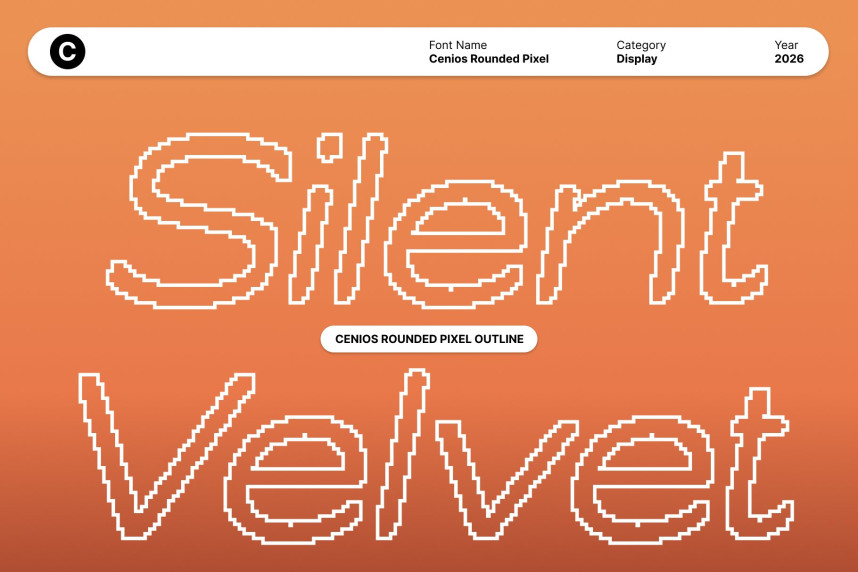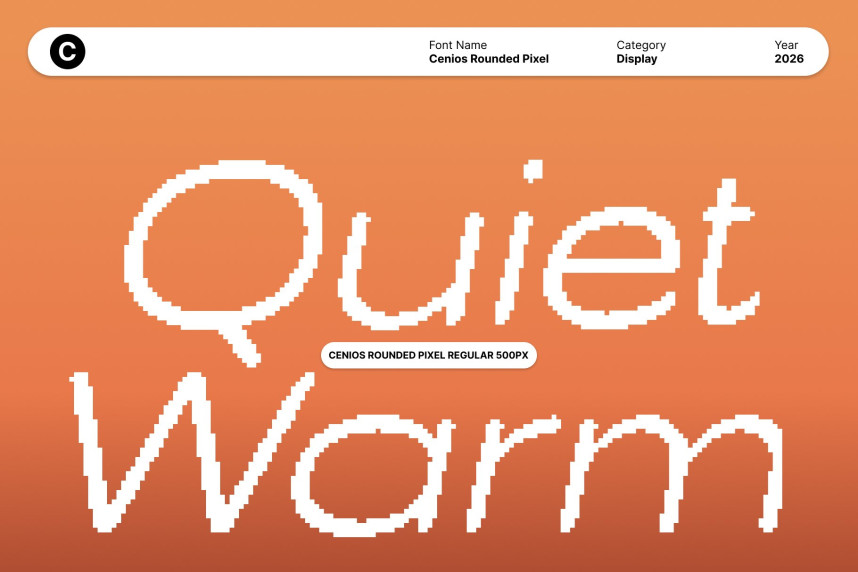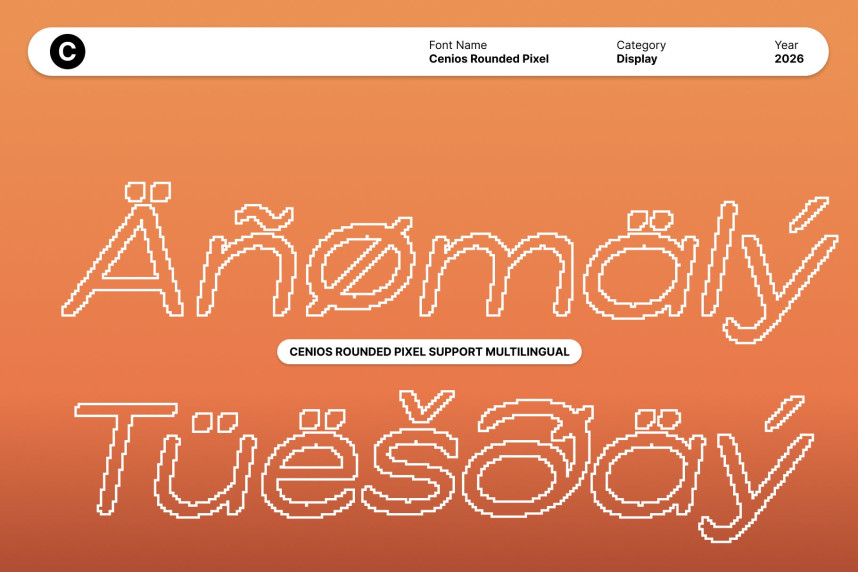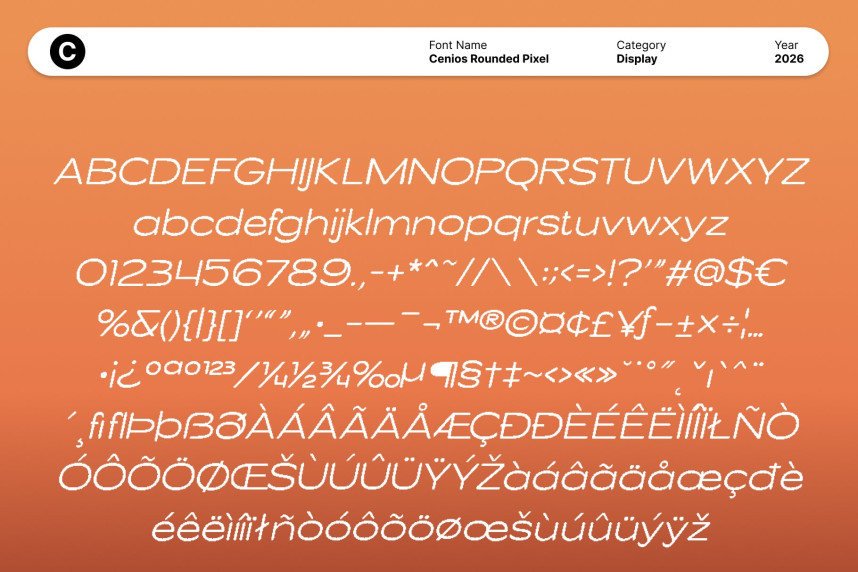
Cenios Rounded Pixel Font
Cenios Rounded Pixel Font – Sleek and Corporate Low-Contrast Sans Serif with Pixel Precision. This is a modern sans serif font that combines low-contrast letterforms with subtle pixel detailing. Its minimalist design ensures a clean, professional appearance, making it ideal for corporate and business-oriented applications. The pixel elements add a contemporary, digital-inspired edge, giving the font a unique character while maintaining clarity and legibility.